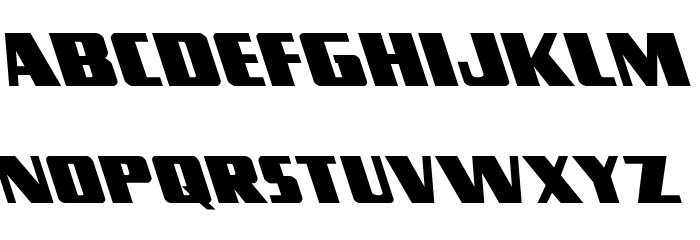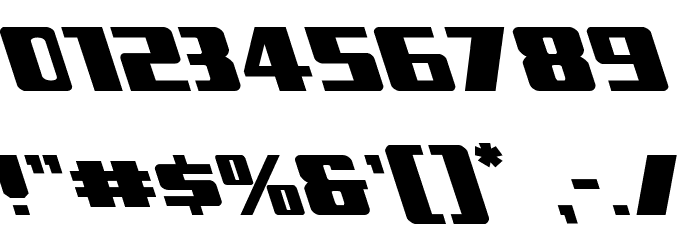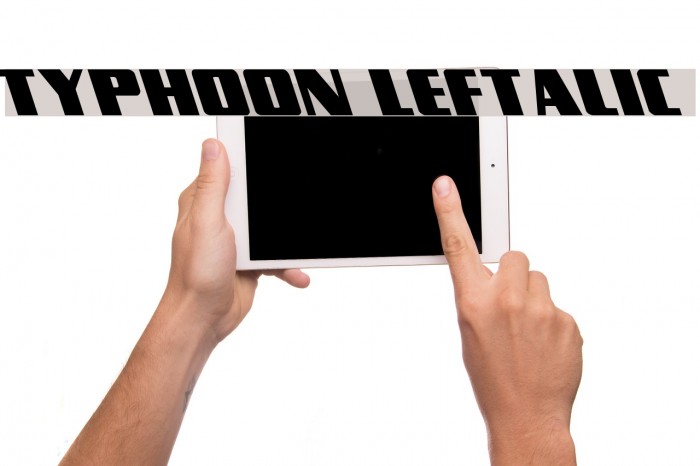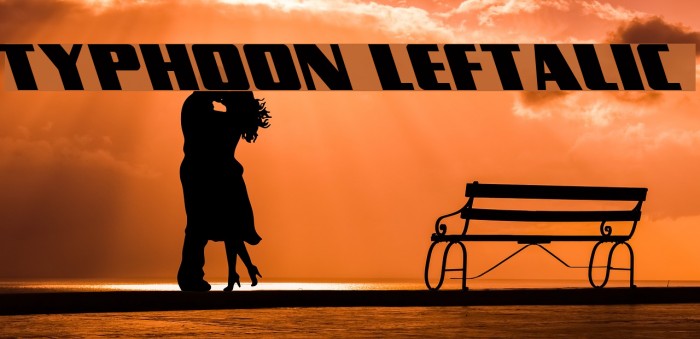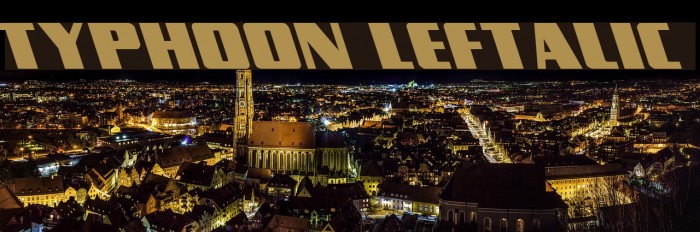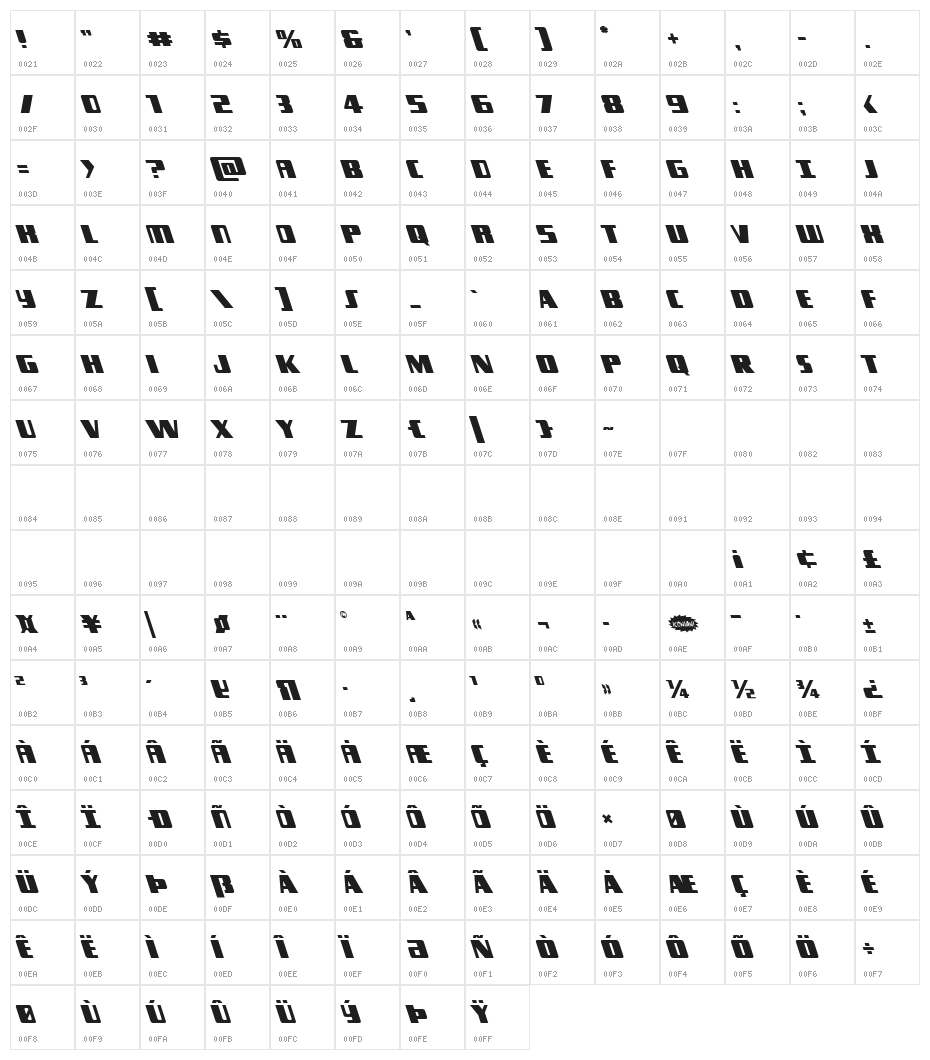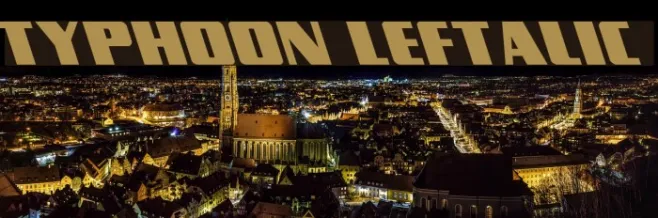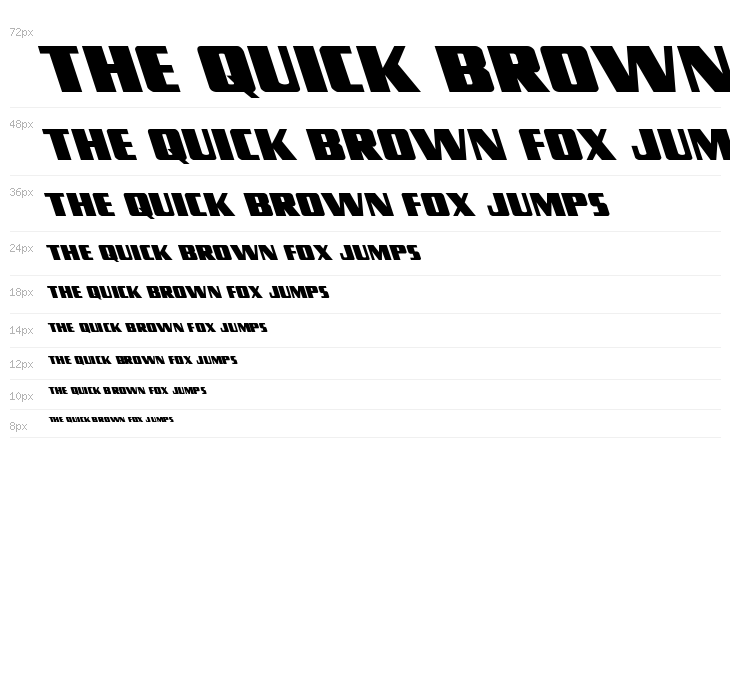
Typhoon Leftalic Font
This font features a bold, dynamic style with a distinct slant to the left, giving it a sense of motion and energy. The characters are robust and angular, with thick strokes that convey strength and impact. The uppercase and lowercase letters maintain a consistent style, with sharp edges and a slightly condensed form. The numerals and special characters follow the same bold and slanted design, ensuring uniformity across all glyphs. This font's unique left-leaning italic style makes it stand out, adding a modern and edgy feel to any design.
A bold, left-leaning italic font with a dynamic and angular style.
- Proposed Projects: Ideal for sports branding, action movie posters, dynamic advertising campaigns, and edgy graphic design projects.